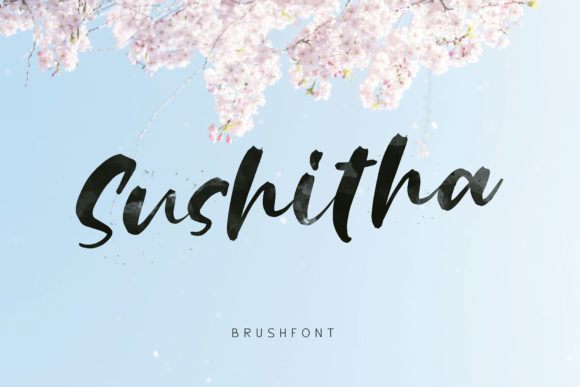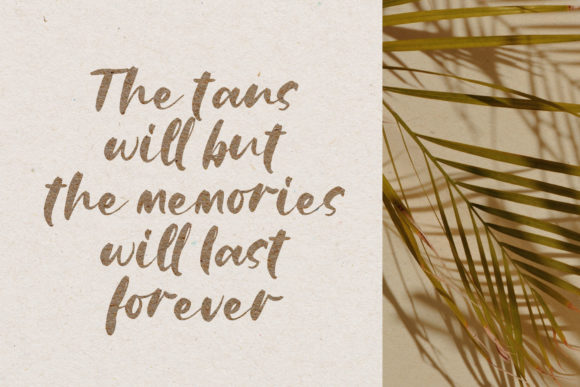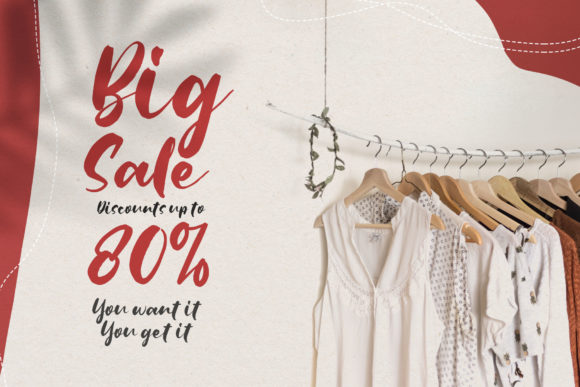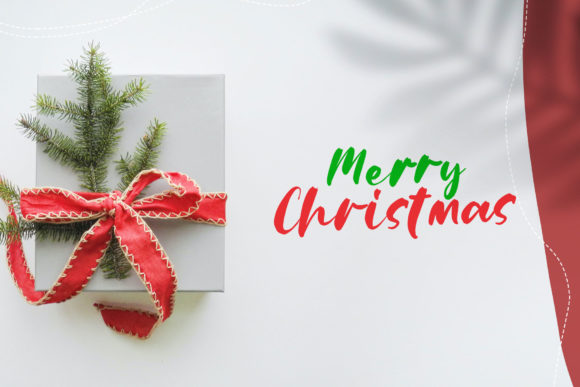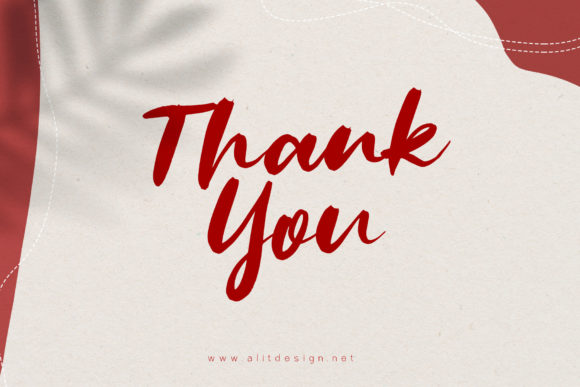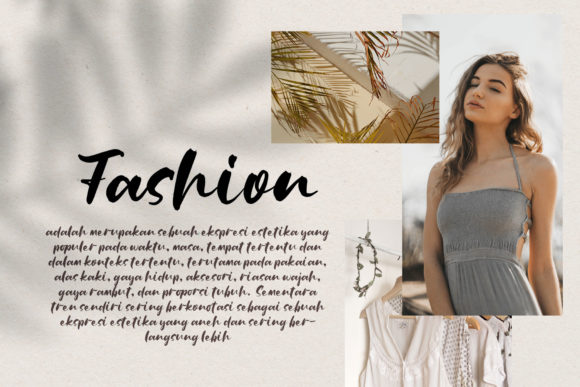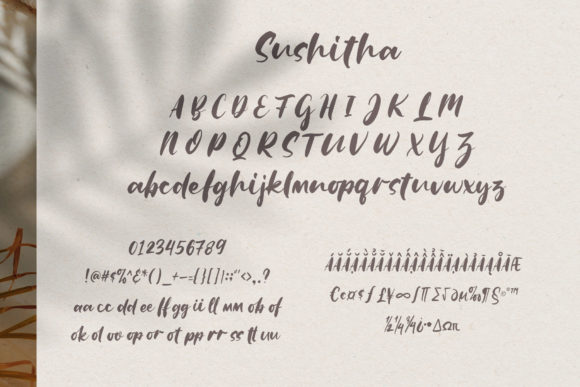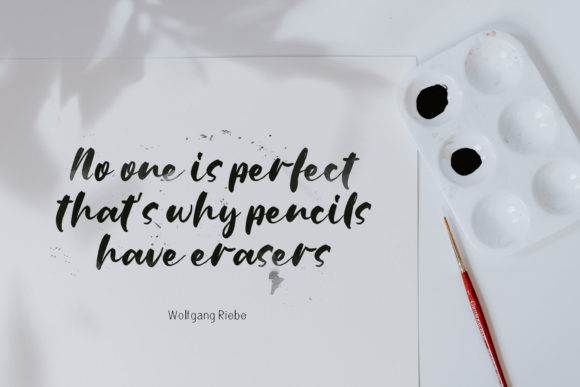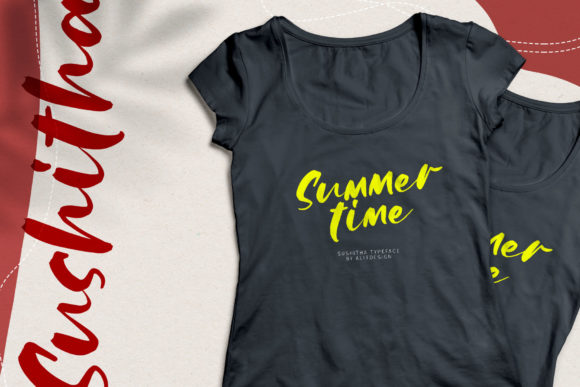
Sushitha Font
About Sushitha Font
Sushitha is a handwritten font, created with a brush pen. Sushita is perfect for any casual design and it will take your upcoming projects to the next level!